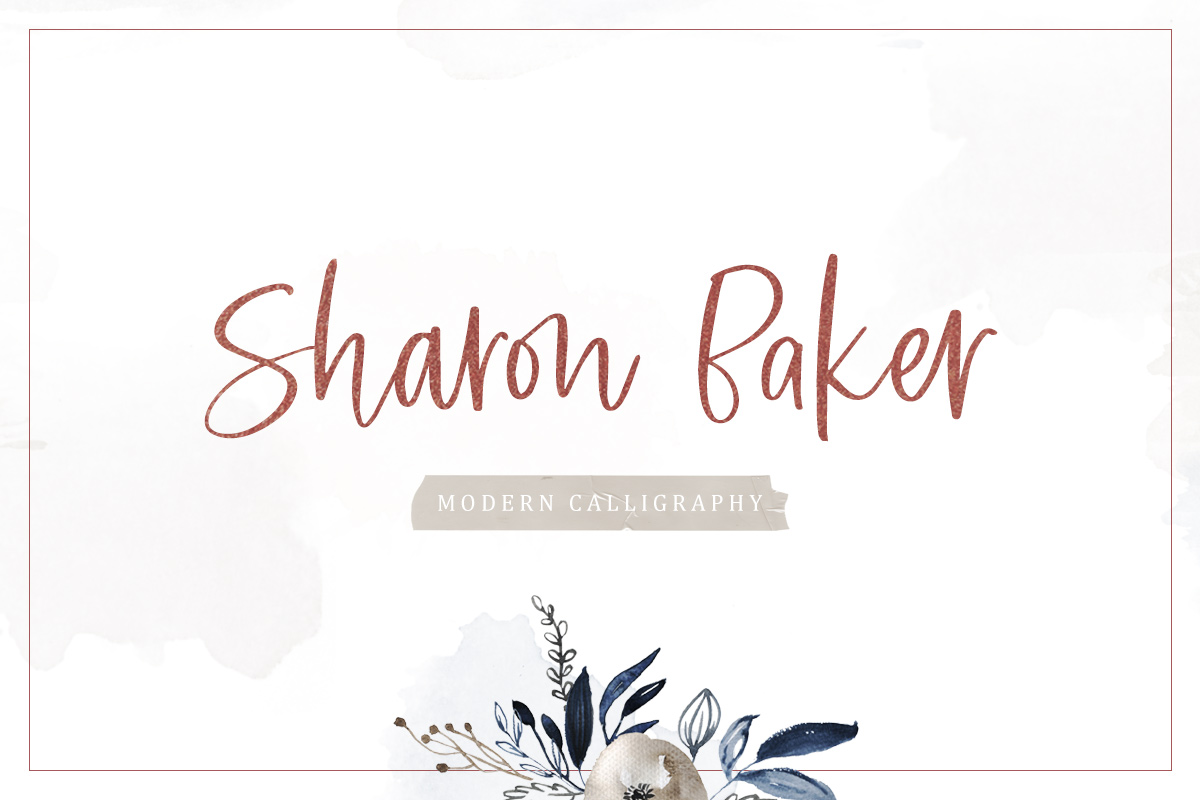
Sharon Baker Font
Sharon Baker Font is perfect for artisanal bakery branding, homemade food blog headers, craft kitchen signage, family recipe book covers, warm restaurant menu designs, cozy café advertising, handmade product labels, traditional cooking class materials, heartwarming community cookbook layouts, and authentic culinary brand identities. This wholesome typeface brings genuine warmth to farm-to-table restaurant branding, local farmers market signage, homestyle catering services, traditional baking workshops, and family-owned food business communications.
Sharon Baker Font is exciting because it embodies the comforting tradition and artisanal craftsmanship of home baking through its lovingly crafted letterforms. The font features warm, inviting characters with gentle curves and handcrafted details that evoke the feeling of flour-dusted aprons, grandmother's recipe cards, and the welcoming aroma of fresh-baked bread. Its distinctive construction demonstrates culinary care with carefully kneaded proportions that create an immediate sense of home comfort and authentic baking tradition. The font's homestyle charm and artisanal authenticity make it perfect for brands seeking to communicate traditional quality, family heritage, and genuine culinary craftsmanship in their visual communications.
The Sharon Baker Font family includes various bakery-inspired styles: Light, Regular, Medium, Bold, Script, Handwritten, Condensed, Extended, Rustic, Traditional, Artisan, and Homestyle variants. Each family member maintains the core baking DNA while offering different levels of traditional warmth for diverse culinary design applications. The comprehensive font collection ensures consistent artisanal branding across seasonal baking campaigns, traditional food products, and heritage culinary marketing materials.
Whether you're developing artisanal food brand identities, designing traditional culinary marketing materials, creating homestyle website headers, or crafting heritage baking promotional campaigns, Sharon Baker Font delivers outstanding culinary appeal and artisanal authenticity. The font's distinctive homestyle personality excels in bakery logos, traditional food packaging, culinary applications, and heritage projects where authentic baking tradition and family warmth are essential.